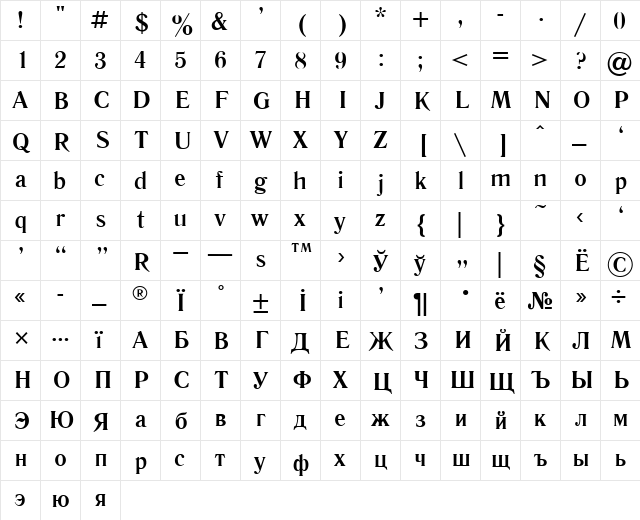
Literaturnaya Bold
Design Context for Literaturnaya Typeface
Literaturnaya takes a measured approach to typography — its balanced proportions and neutral character make it a reliable workhorse for both digital and print work. Its bold stroke weight gives it real presence on the page.